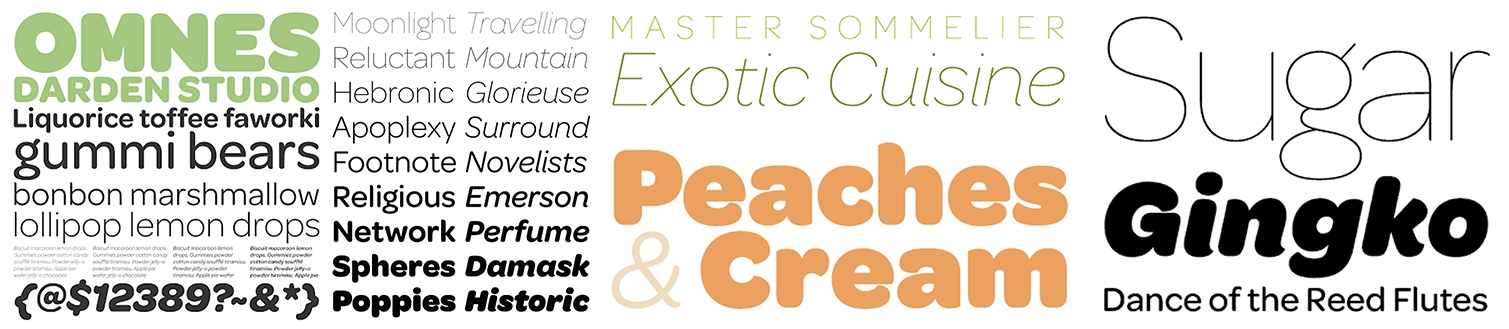
Omnes Font
Omnes Font is perfect for inclusive organizations, universal service providers, comprehensive consulting firms, all-encompassing educational platforms, total solution companies, and complete professional services. Its universal character makes it ideal for global corporations, inclusive diversity programs, comprehensive healthcare systems, universal design agencies, all-encompassing technology platforms, and any project requiring complete coverage with universal appeal and all-inclusive excellence.
This font is exciting because it embodies the principle of universal inclusion and comprehensive coverage while delivering exceptional functionality for organizations committed to serving everyone, covering all needs, and providing complete solutions without exclusion or limitation. The comprehensively crafted letterforms reflect the systematic approach and inclusive thinking required to truly serve all audiences with universal accessibility and complete professional coverage.
The Omnes Font family typically includes extensive weight variations from Thin to Black with corresponding italics, universal alternates, and comprehensive language support that enhance its inclusive personality. This complete collection enables universal professionals to create authoritative brand systems that maintain inclusive credibility while offering flexibility for various comprehensive applications requiring both universal authority and contemporary all-encompassing market positioning.
Whether you're developing identity systems for global organizations, creating materials for inclusive service providers, or designing promotional content for comprehensive solution companies, Omnes Font Free Download delivers the universal appeal and inclusive excellence that resonates with diverse audiences seeking complete coverage and all-encompassing professional services. Its comprehensive presence ensures reliable brand recognition across digital platforms and print materials, making it perfect for websites, mobile applications, and universal campaigns that celebrate inclusive excellence, comprehensive coverage, and the transformative power of truly universal service with contemporary global standards and authentic all-inclusive integrity.